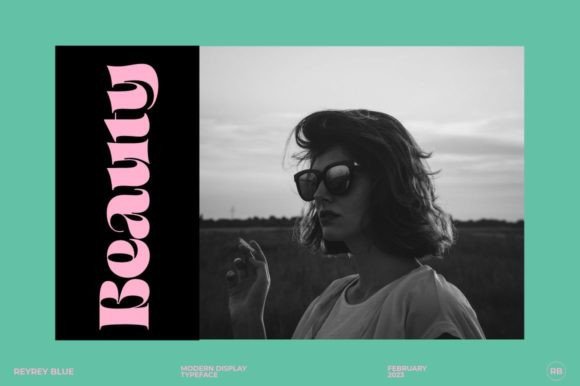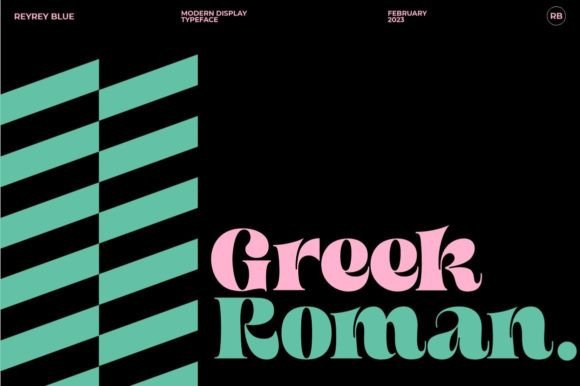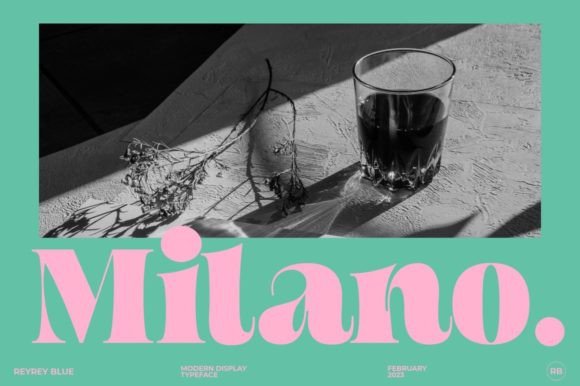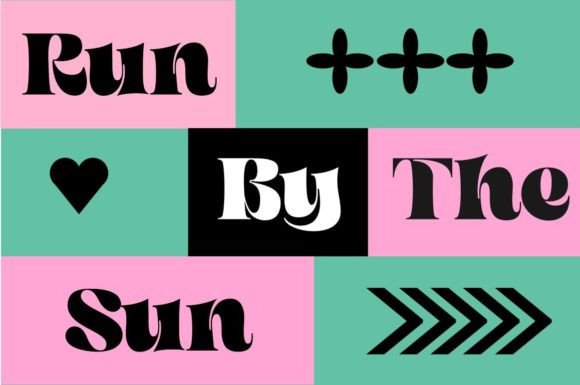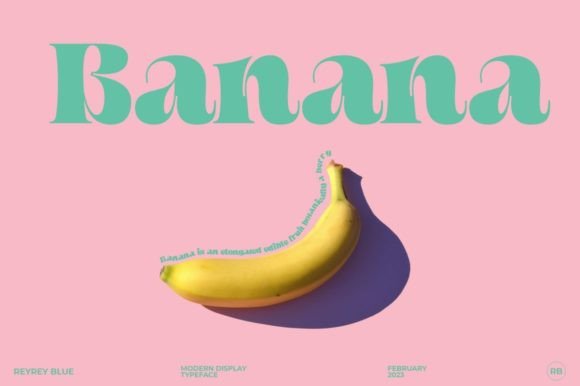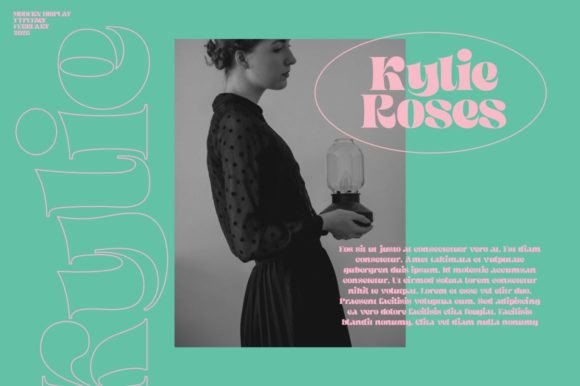
Introducing Begild Typeface: The Bold, Fun, and Attractive Modern Serif
In the world of typography, a new font can make all the difference in bringing a fresh perspective to your design work. Meet Begild, a modern serif typeface that’s about to revolutionize the way you approach your creative projects. With its bold, fun, and attractive aesthetic, Begild is the perfect addition to any designer’s collection.
What Makes Begild Stand Out?
Begild is more than just a font – it’s a statement piece. Its modern serif design gives it a unique edge that’s both stylish and sophisticated. Whether you’re working on a logo, branding, magazine, product packaging, or invitation, Begild’s appealing look is sure to make your work stand out. The font’s versatility makes it an excellent choice for a wide range of applications, from quotes and body copy to headings and titles.
As a designer or crafter, you’re always on the lookout for fonts that can help you create visually stunning work. Begild ticks all the right boxes. Its bold and fun design makes it perfect for projects that require a bit of personality, while its attractive aesthetic ensures that your work will look professional and polished. Whether you’re creating a brand identity, designing a magazine, or crafting a beautiful invitation, Begild is the perfect choice.
Why Choose Begild?
So, what sets Begild apart from other fonts on the market? Here are just a few reasons why you should consider adding it to your collection:
- Versatility: Begild is suitable for a wide range of applications, from quotes and body copy to headings and titles.
- Unique Design: The font’s modern serif design gives it a unique edge that’s both stylish and sophisticated.
- Easy to Read: Despite its bold and fun design, Begild is easy to read, making it perfect for body copy and other long-form text.
- Highly Customizable: With Begild, you can experiment with different styles, colors, and effects to create a look that’s all your own.
How to Use Begild in Your Design Projects
Now that you’ve fallen in love with Begild, it’s time to start using it in your design projects. Here are a few ideas to get you started:
- Branding and Logos: Use Begild to create a bold and memorable brand identity that sets you apart from the competition.
- Magazines and Publications: Add a touch of sophistication to your magazine or publication with Begild’s elegant serif design.
- Product Packaging: Make your product stand out on store shelves with Begild’s bold and eye-catching design.
- Invitations and Stationery: Add a touch of personality to your invitations and stationery with Begild’s fun and attractive aesthetic.
Get Ready to Elevate Your Design Work
With Begild, you can take your design work to the next level. Whether you’re a seasoned designer or just starting out, this modern serif typeface is sure to inspire you to create something amazing. So why wait? Add Begild to your collection today and discover a world of creative possibilities.
In conclusion, Begild is a game-changing font that’s about to revolutionize the way you approach your design work. Its bold, fun, and attractive aesthetic makes it perfect for a wide range of applications, from branding and logos to magazines and product packaging. With its versatility, unique design, and ease of use, Begild is a must-have for any designer or crafter looking to elevate their work.